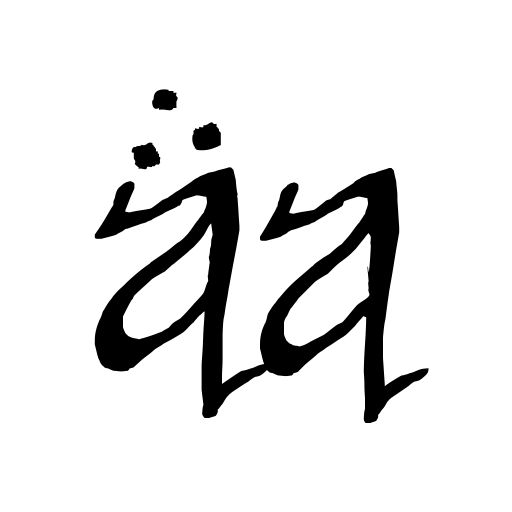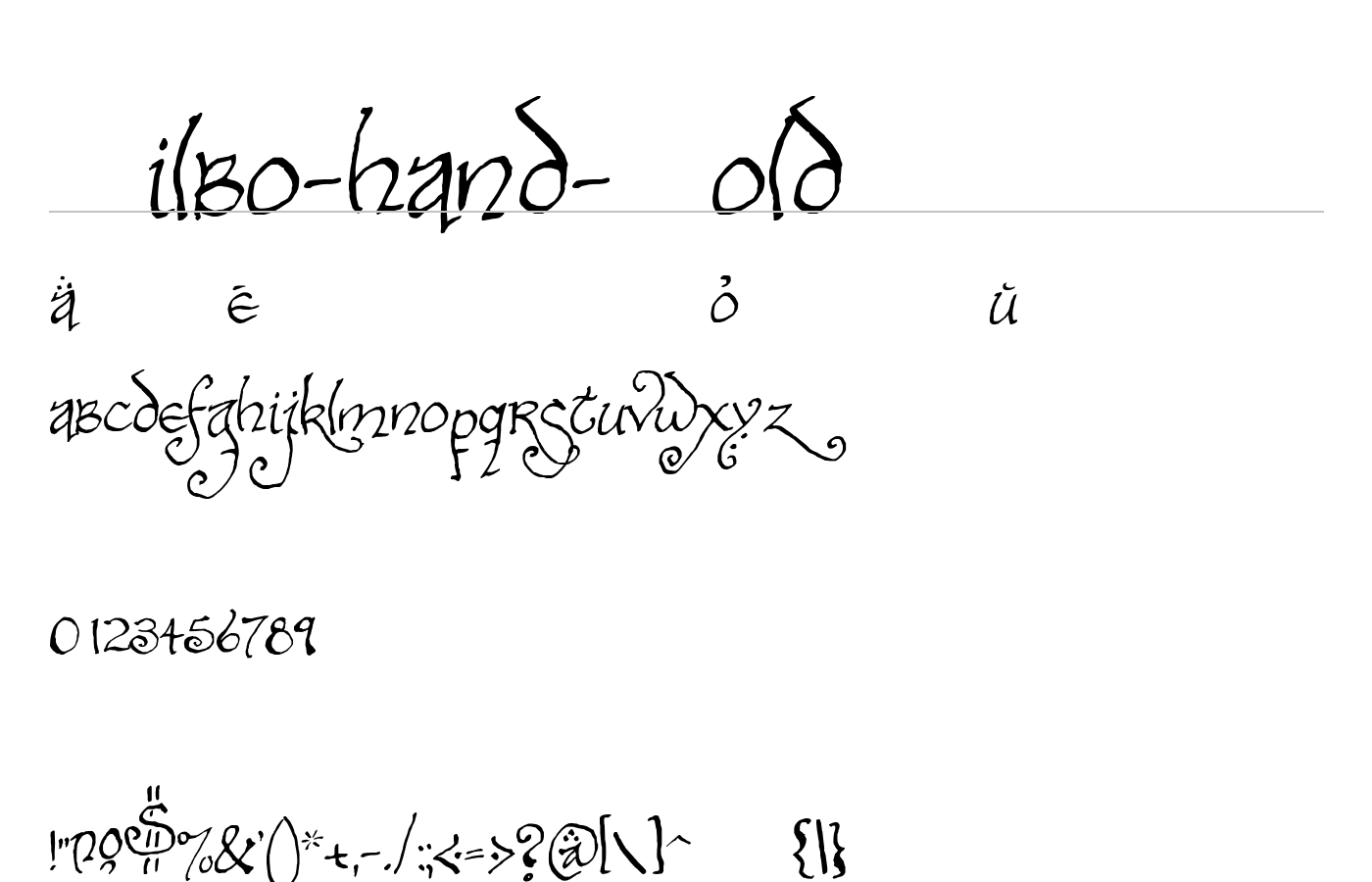
Bilbo-hand is an ornate handwritten script font characterized by its whimsical, flowing strokes and playful curls, lending it a charming, vintage feel. With its irregular, calligraphic style and delicate details, this font works beautifully for creative, fantasy-inspired design projects, such as invitations, book covers, or decorative branding that seeks a magical or old-world touch. Its unique personality makes it ideal for headlines or display use where a distinctive, artistic flair is desired.
Bilbo-hand Font
About Bilbo-hand Font